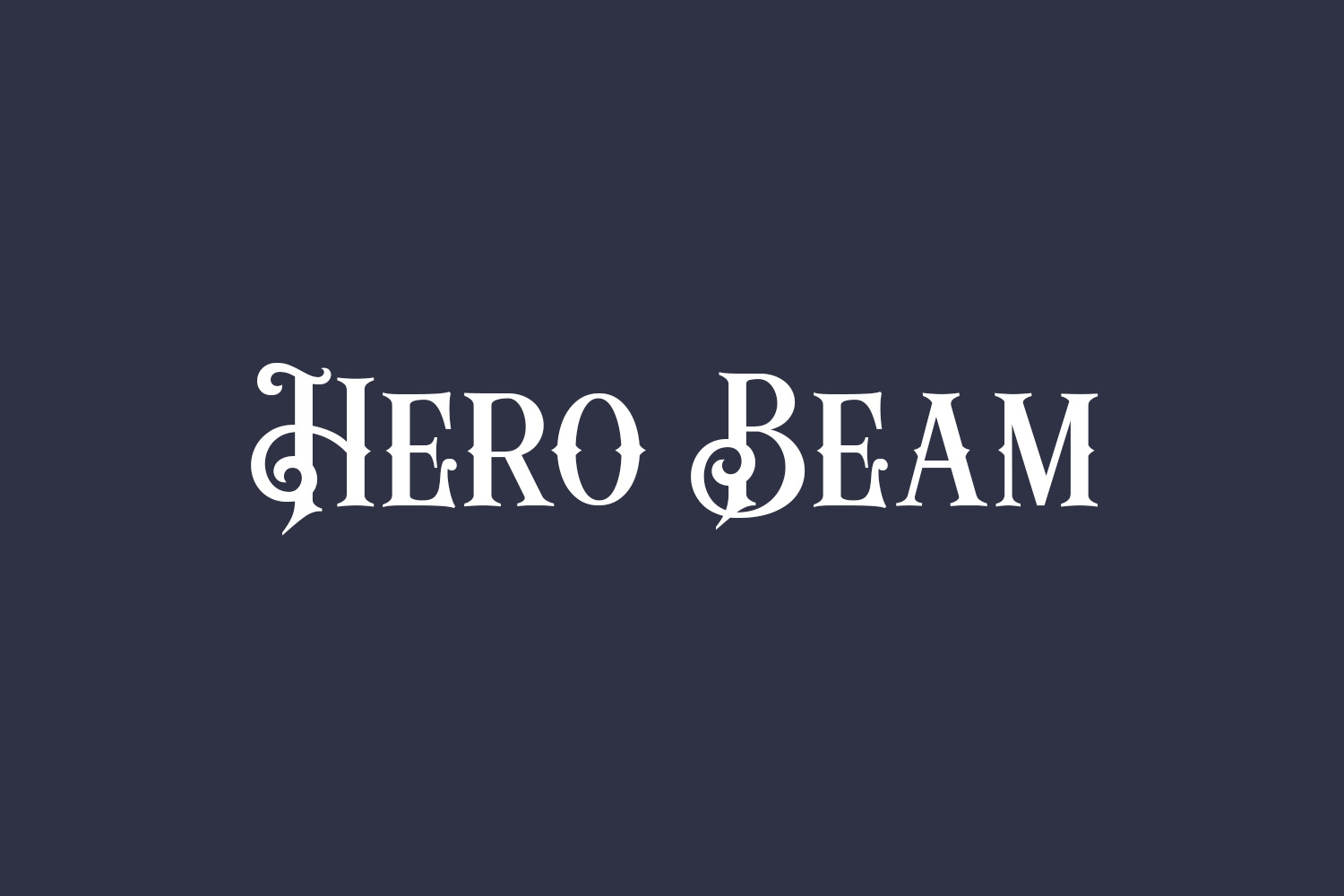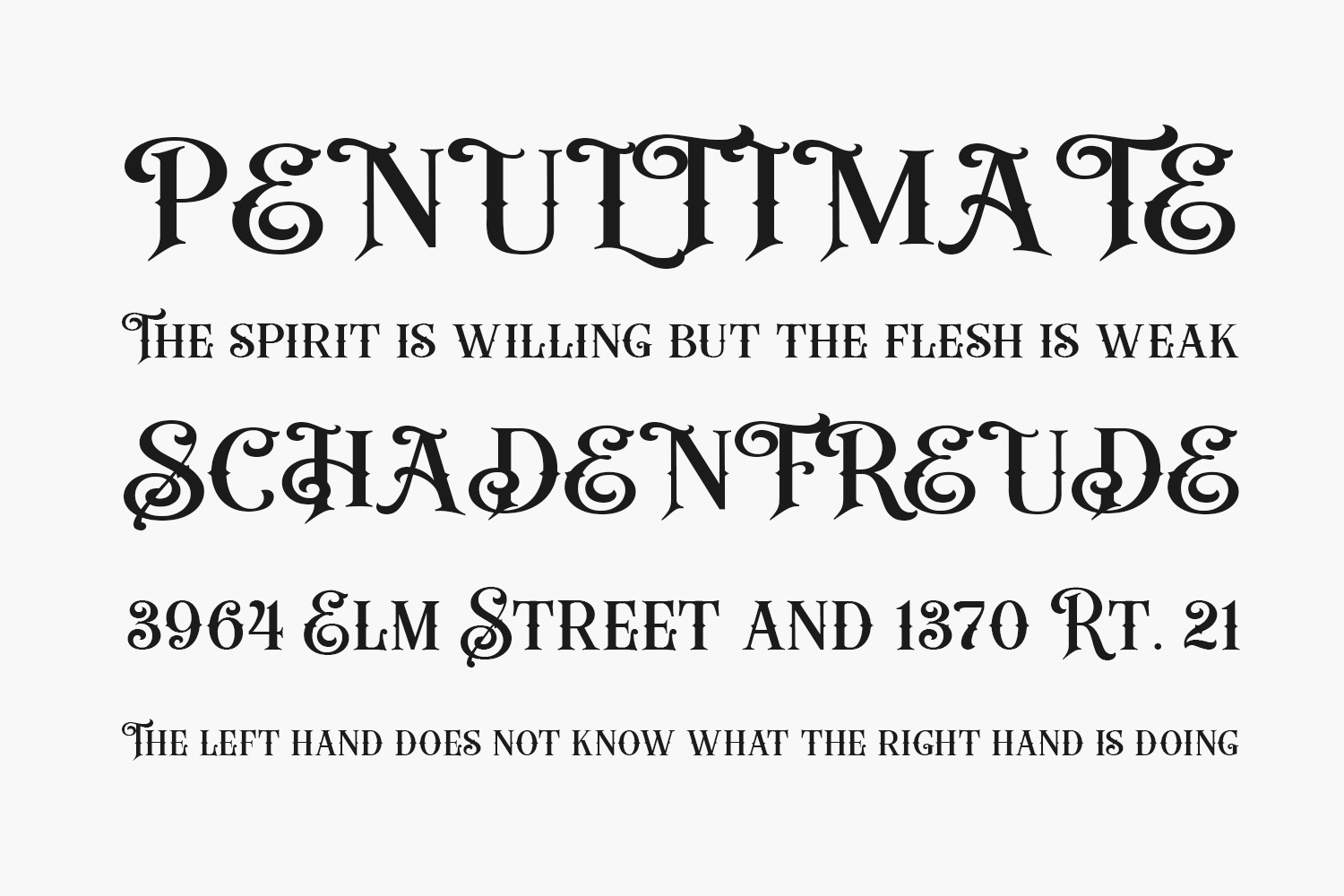
Hero Beam Free Font is a victorian styled, bold, and uniquely designed blackletter font. Hero Beam Free Font was designed by Alit Design and is free for personal use only. Please purchase the full version for commercial use.